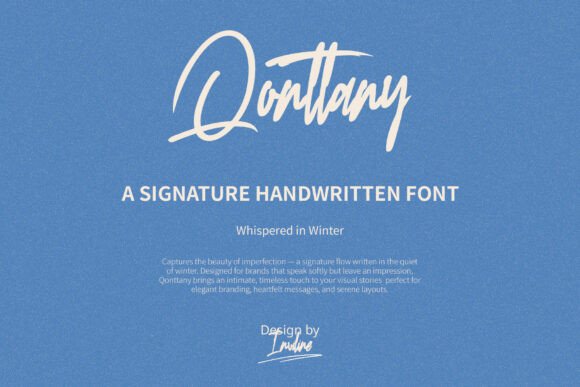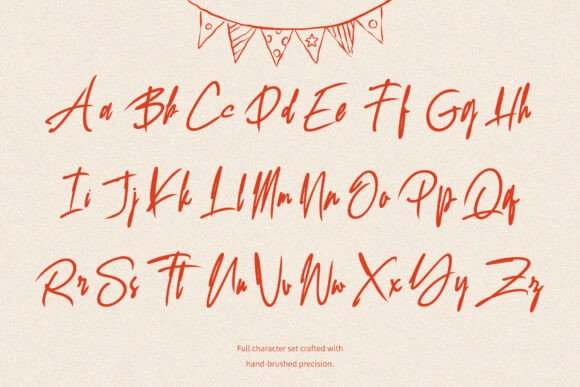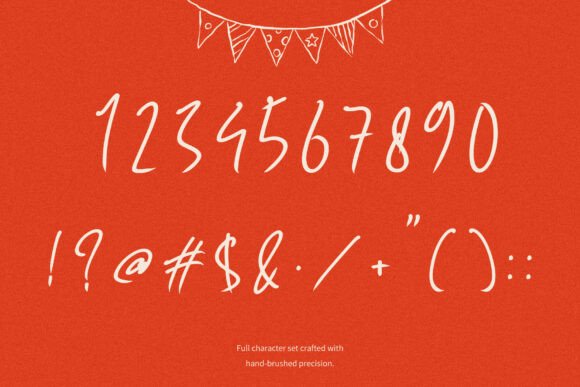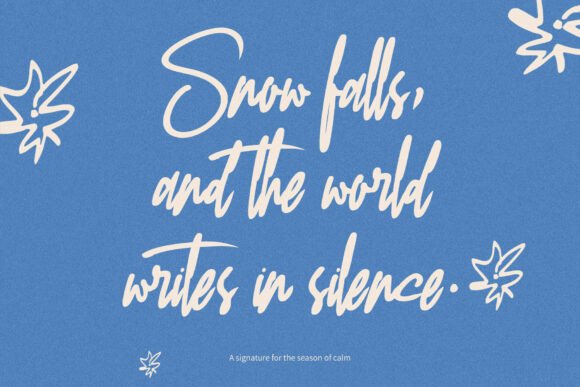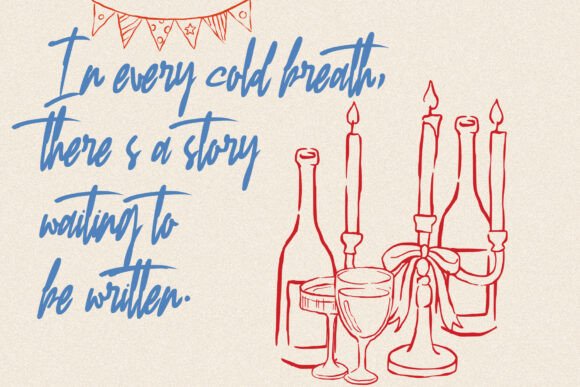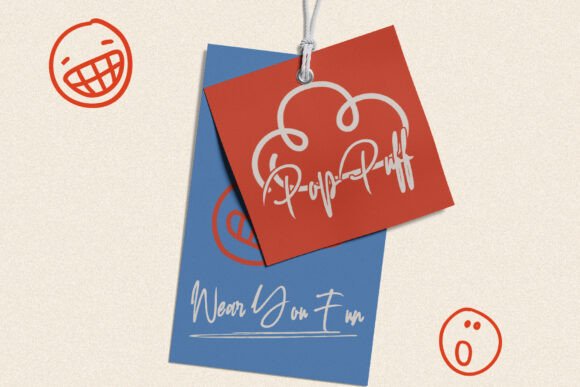
Introduction to Qonttany Font
Qonttany – Hand-Brushed Signature Typeface Qonttany Font is a sophisticated hand-brushed signature typeface with an elegant, flowing style.
Its natural brushstrokes and fluid curves make it ideal for branding , signature logos, wedding stationery, and high-end social media content Qonttany captures the beauty of handwritten signatures while maintaining legibility and flair.
Key Features of Qonttany Font